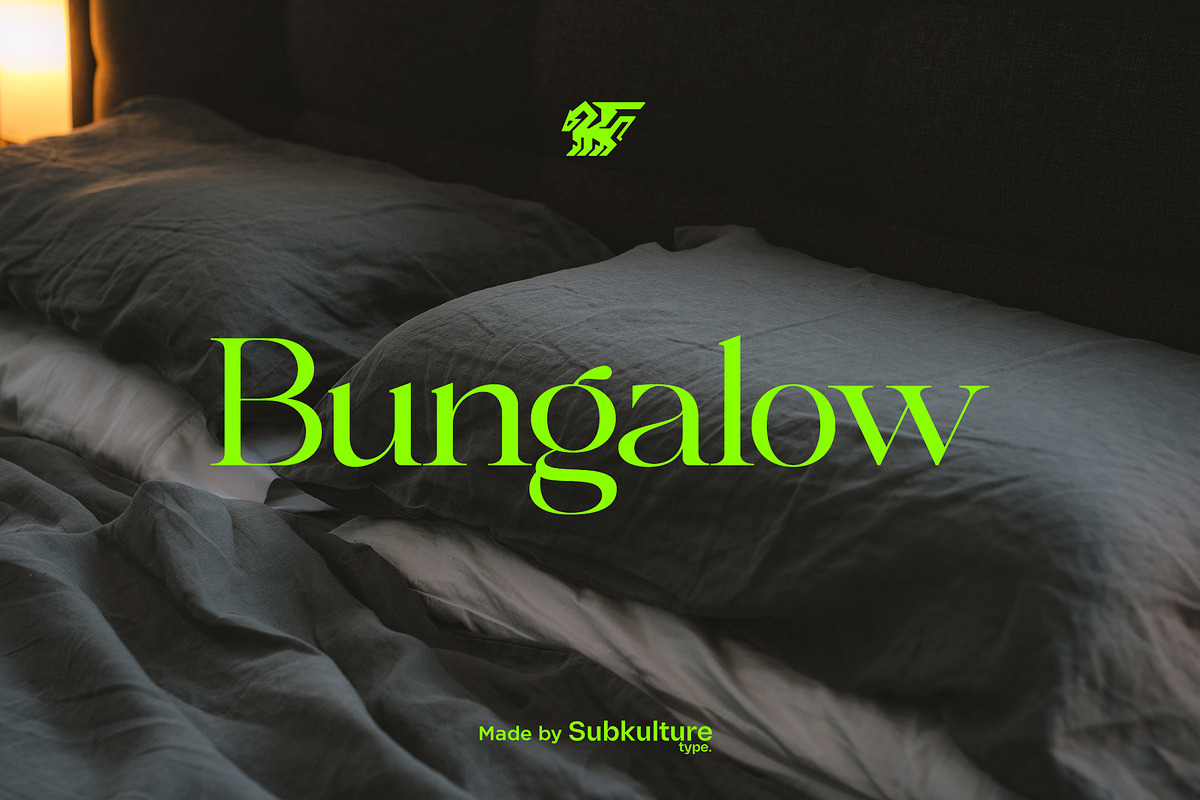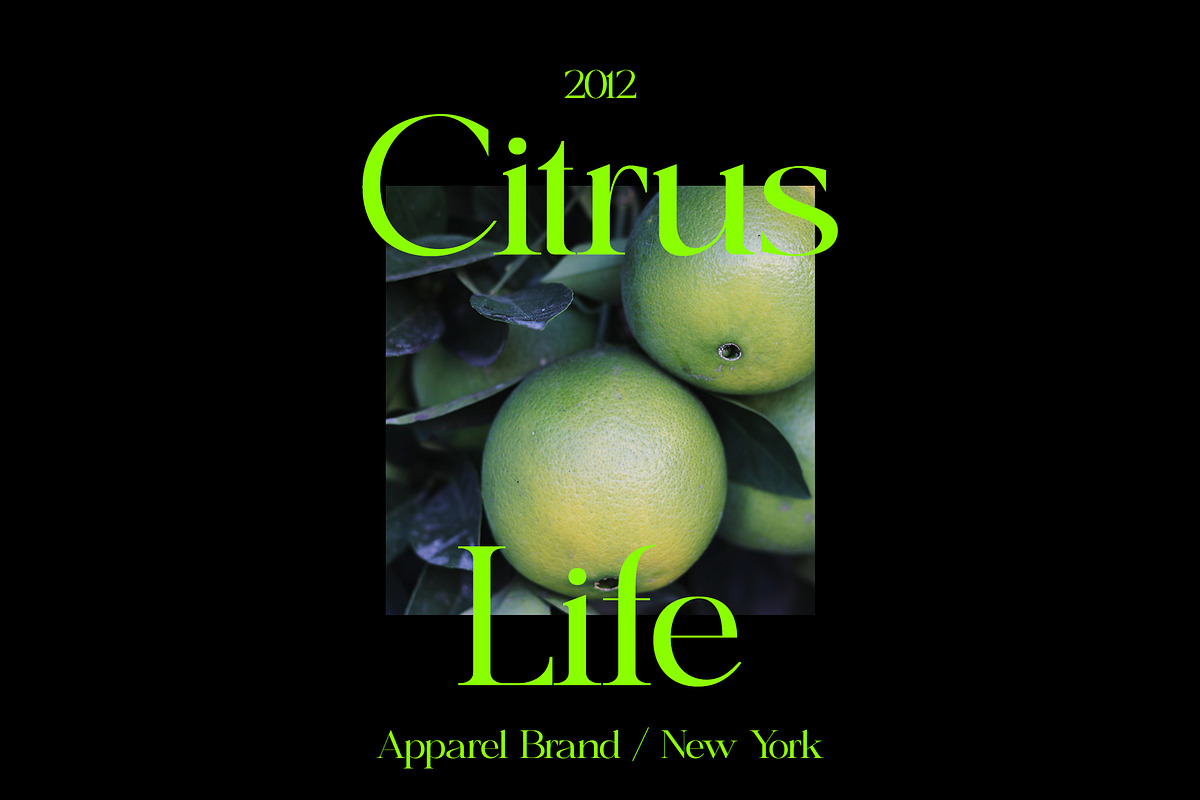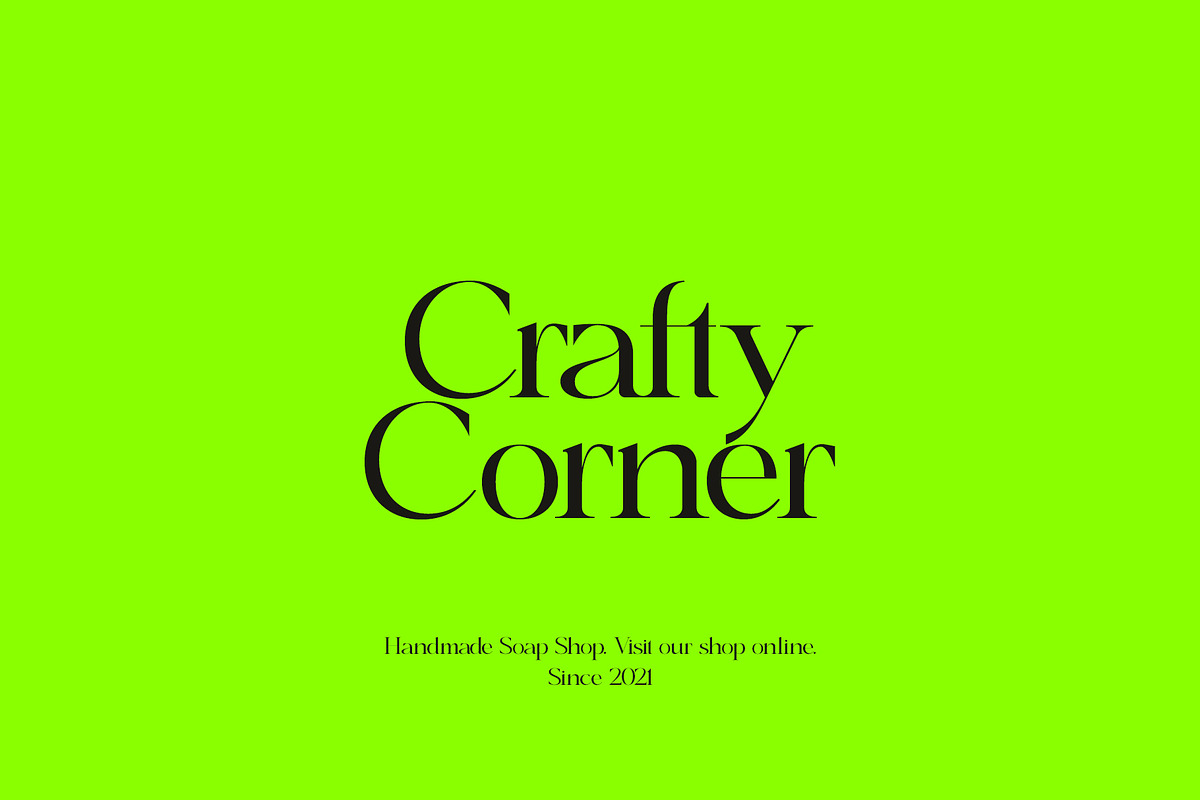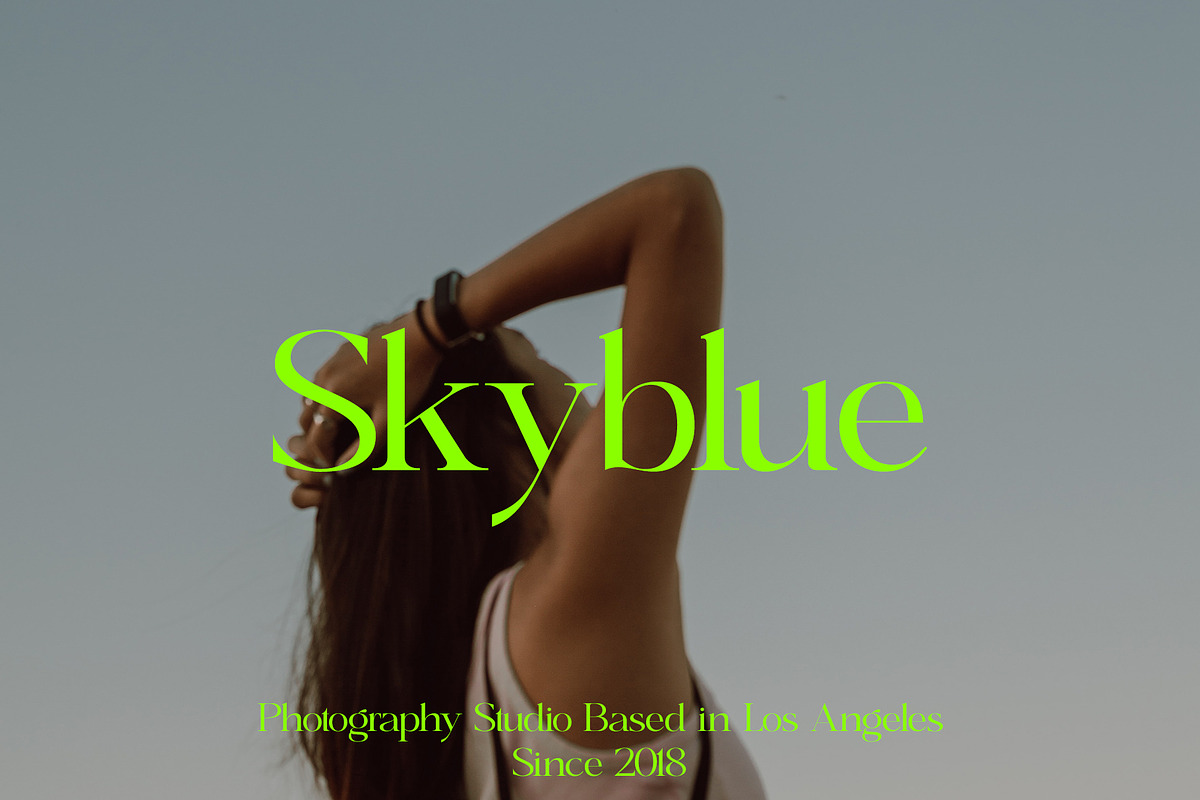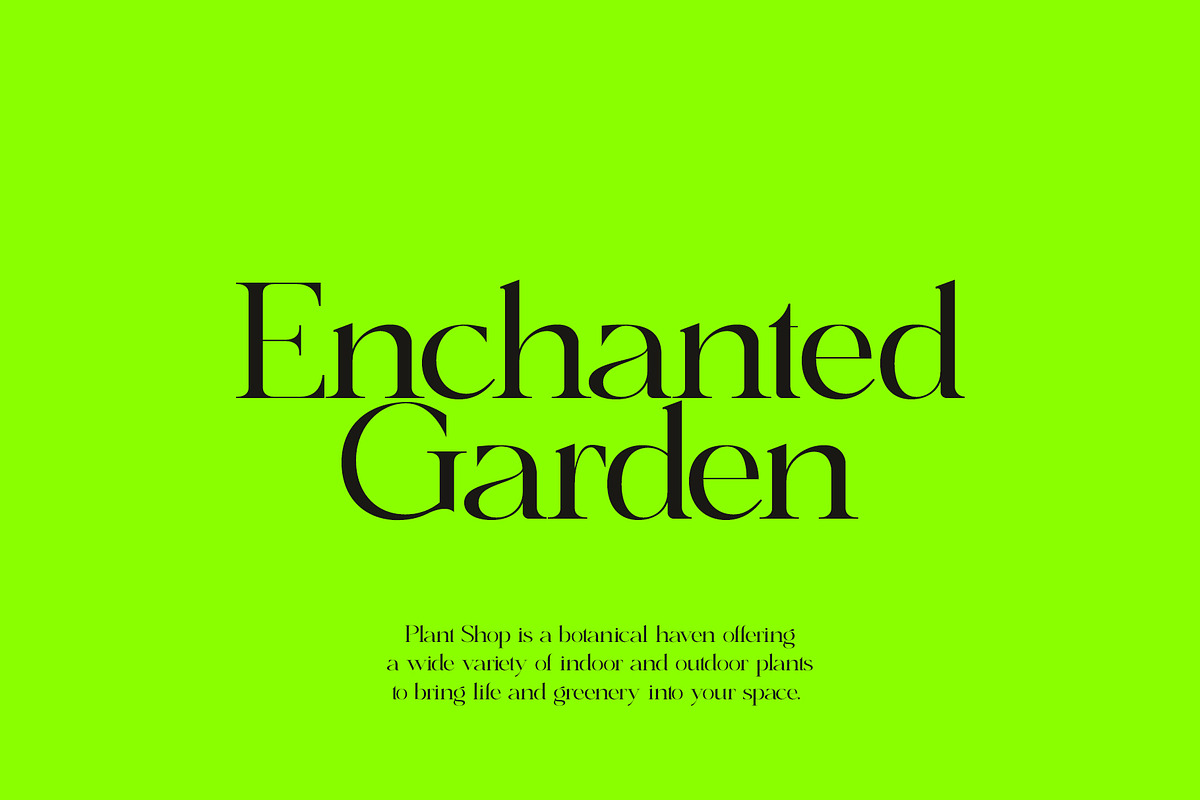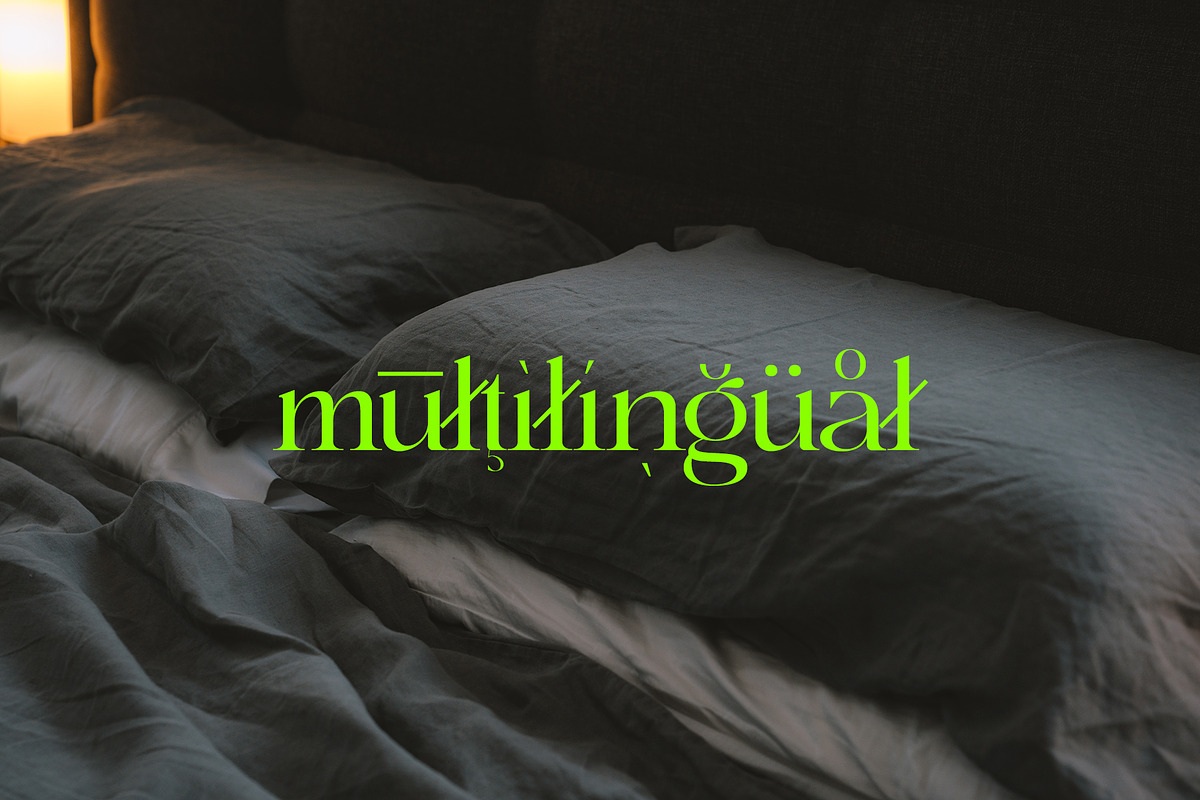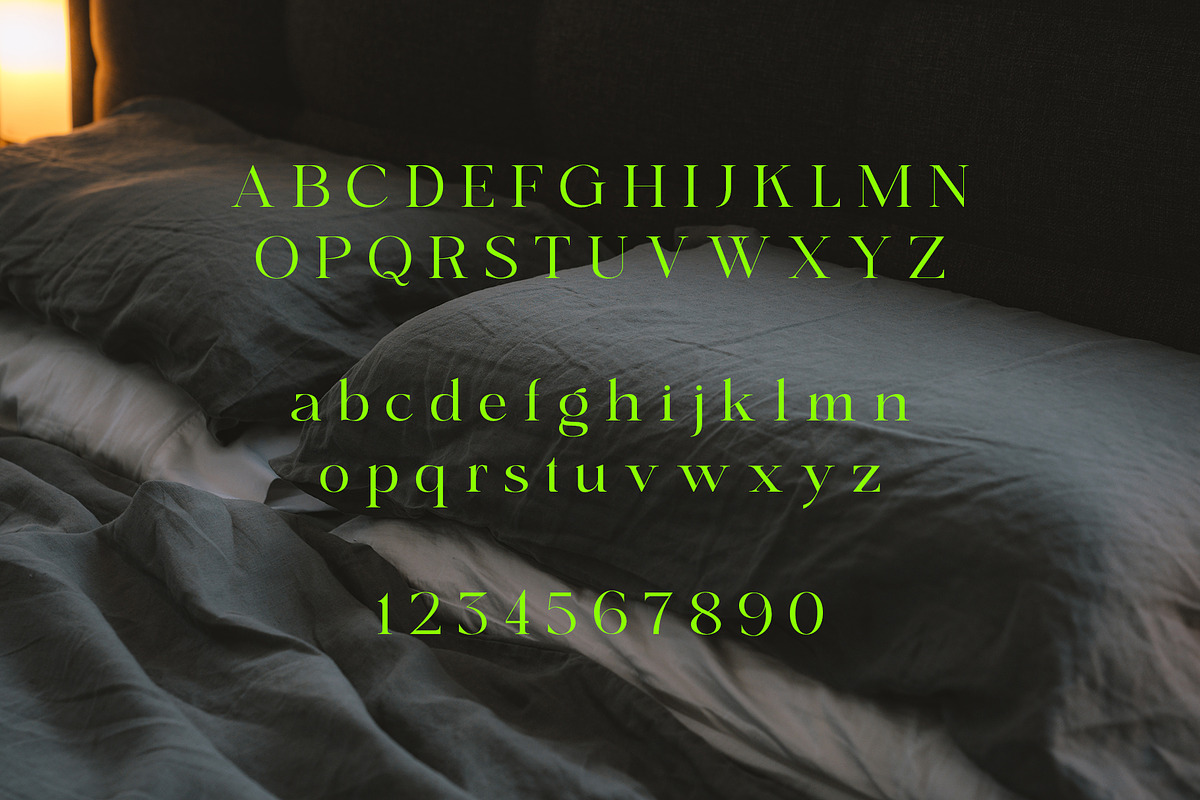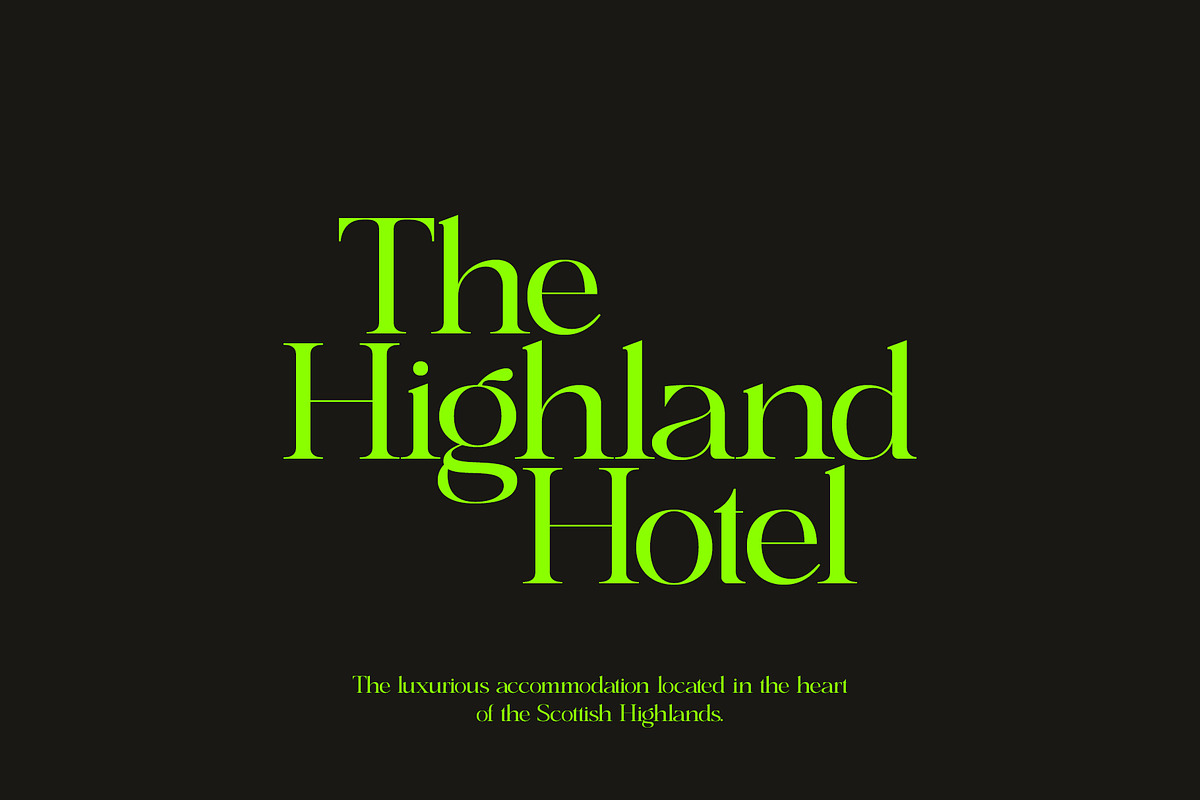
Bungalow - Elegant Serif
Bungalow is an elegant serif typeface that exudes sophistication and charm. With its graceful curves and classic design, Bungalow adds a touch of refinement to any project. Whether used for branding, editorial design, or invitations, this typeface brings a sense of elegance and timelessness. Its versatility and legibility make it a versatile choice for a wide range of design applications. Elevate your designs with the timeless beauty of Bungalow serif typeface.
Bungalow features uppercase & lowercase letters, numbers & symbols, multilingual support, over 250+ glyphs.